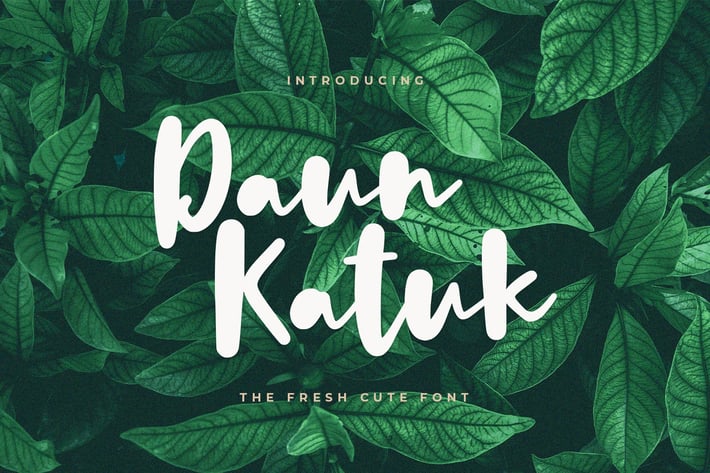
Daun Katuk - The Fresh Cute Font
Daun Katuk - The Fresh Cute Font, every single letter has been carefully crafted to make your text looks beautiful. it's perfect for logos, name card, magazine layouts, invitations, headers, or even large-scale artwork.
- Daun Katuk font including upper & lowercase characters, numerals and more of symbols.
- Support International Character set